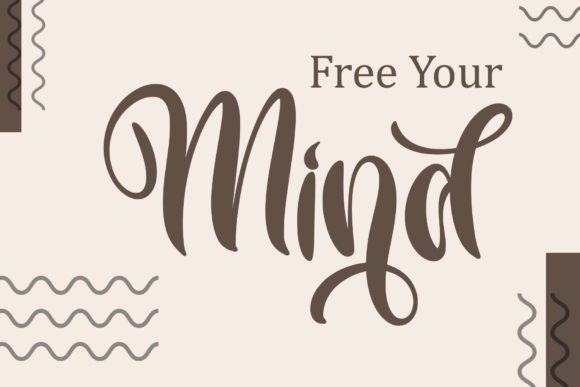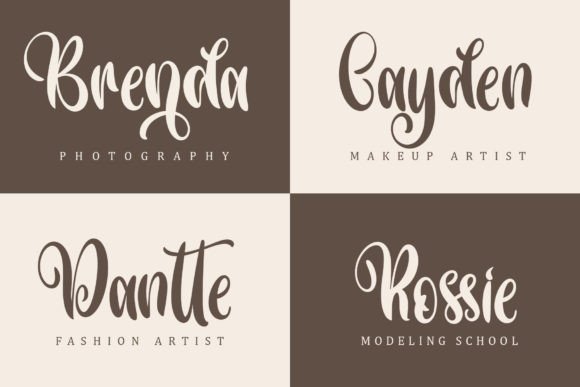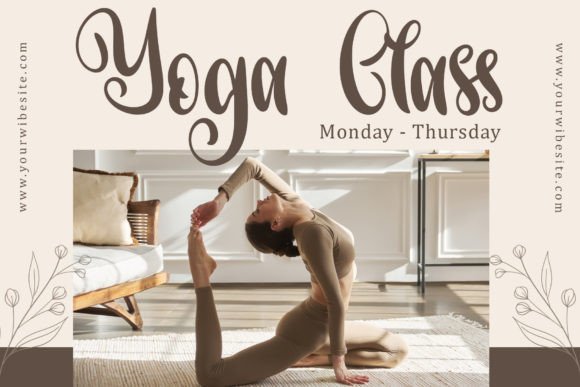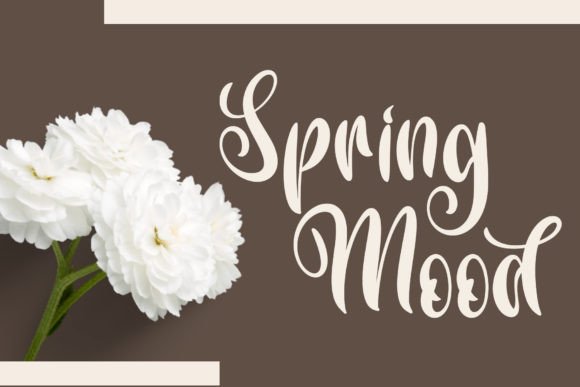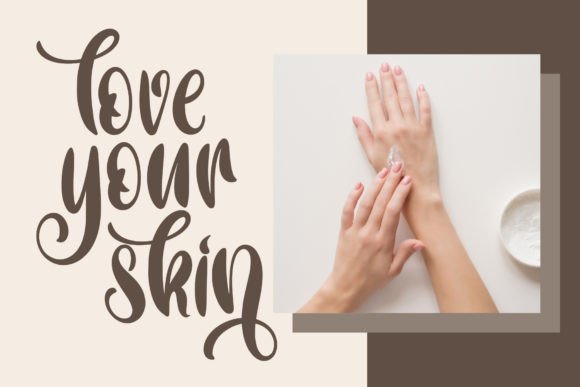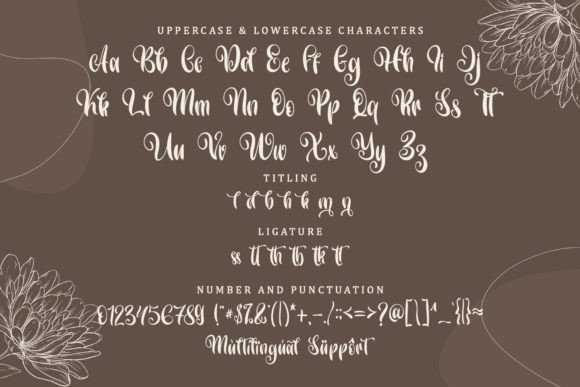
Find Your Signature Style with the Honey Island Font
You know that moment when you stumble upon a design element that just clicks? It’s like the missing piece of a puzzle, and suddenly, your entire project comes together. For designers, discovering the perfect font can be a game-changer. And, trust us, you’re in luck if you’re on the hunt for something special.
Enter the Honey Island Font, a stunning handwritten font that effortlessly blends classic calligraphy with modern flair. Whether you’re crafting a wedding invitation, a logo, or a branding package, this font is sure to elevate your work to new heights. Its versatility and timeless charm make it a valuable addition to any designer’s toolkit, helping to take their projects from good to great.
Honey Island Font Key Features
- Font Family: Honey Island Font is a unique script font designed to evoke the feeling of handwritten notes.
- Unique Characteristics: The font features elegant, flowing lines, and subtle flourishes, giving it a personal and artistic touch.
Honey Island Font Review
As a designer, I was excited to try out the Honey Island Font. Overall, I was pleasantly surprised by its unique charm. ✨ The font has a great balance of modern and vintage elements, making it perfect for projects that require a touch of nostalgia.
- ⚠️ Limited character set: The font’s character set is not extensive, which may limit its use in certain projects.
- ⚠️ Not ideal for small text: Due to its unique design, the font may not be the best choice for small text sizes, as it can become difficult to read.
Overall, I think the Honey Island Font is a great addition to any designer’s toolkit. While it may have some limitations, its unique charm and customization options make it a worthwhile investment. If you’re looking for a font that adds a touch of personality to your designs, Honey Island is definitely worth considering.
Tips for Getting the Most Out of Honey Island Font
For the best results, pair the Honey Island font with a clean and minimalist design. Use it for headings and titles to add a touch of elegance and sophistication. Experiment with different font sizes and colors to create a visually appealing design.
The Honey Island font is ideal for wedding invitations, branding, and packaging design. Its elegant and sophisticated style makes it perfect for creating a luxurious and high-end look.